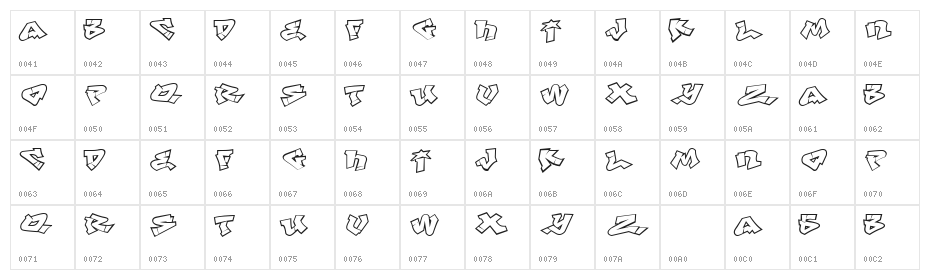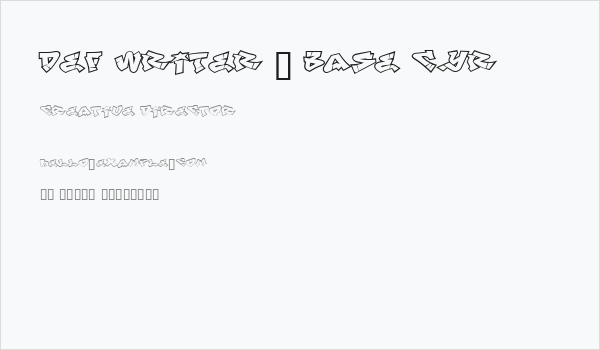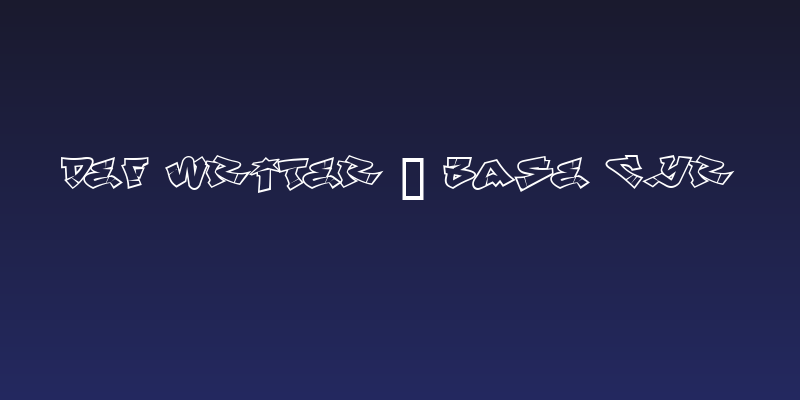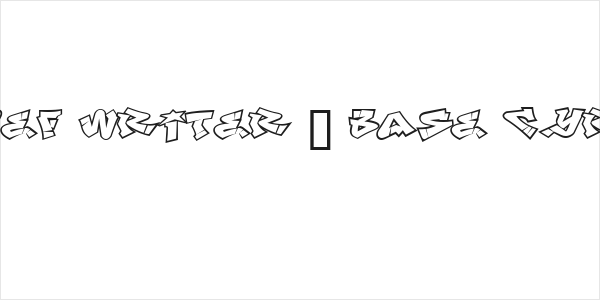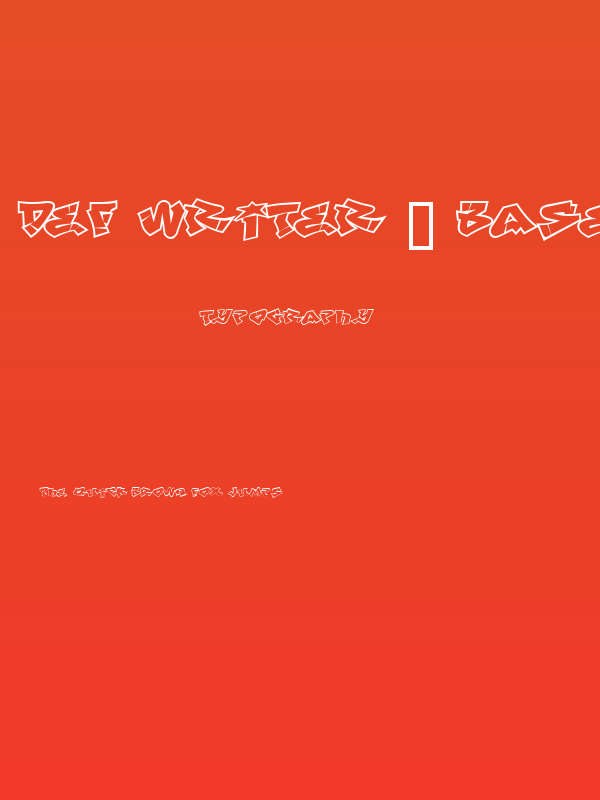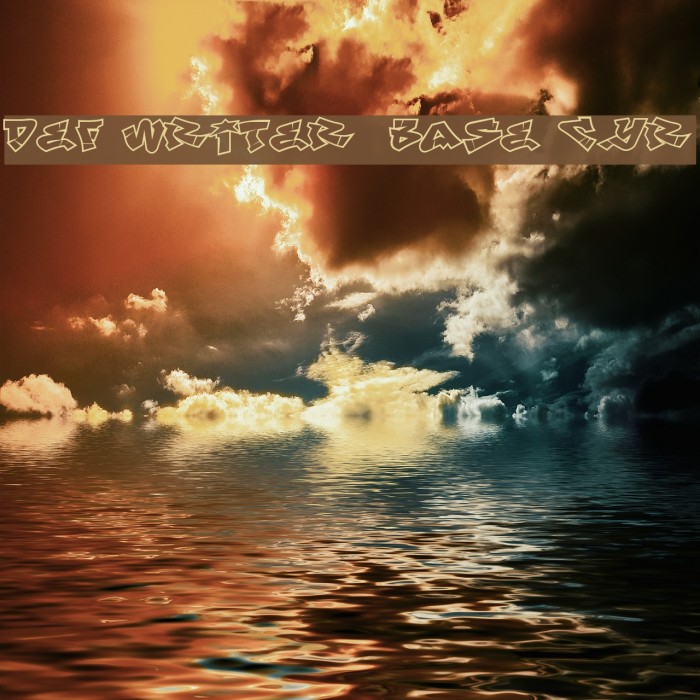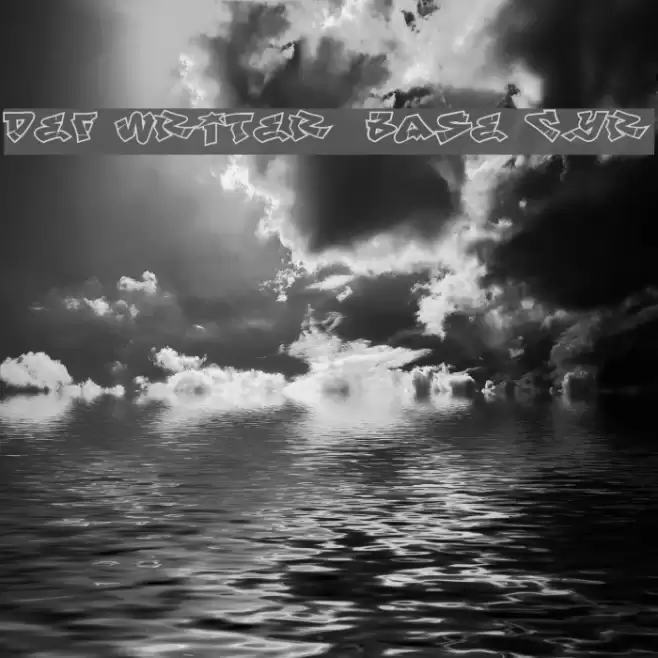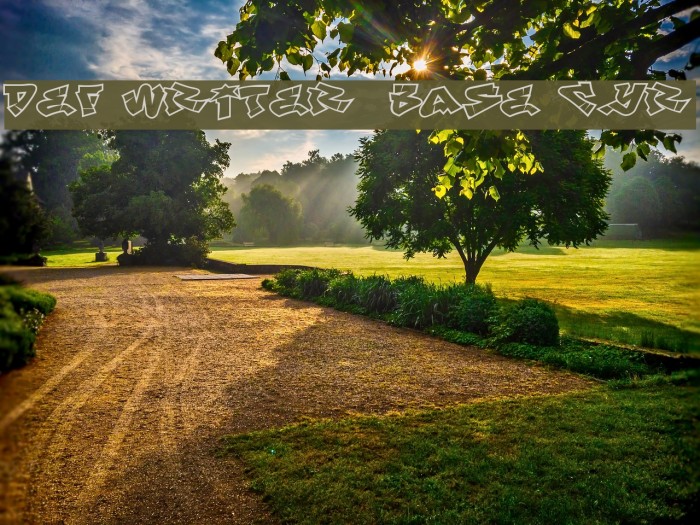
Def Writer | BASE Cyr Font
Def Writer | BASE Cyr Description
This font features a bold, graffiti-inspired style with angular, dynamic shapes that give it a sense of movement and energy. The uppercase and lowercase letters share a consistent design, characterized by sharp edges and a slightly uneven baseline, adding to its urban, street-art aesthetic. The numbers and special characters maintain this edgy look, making the font suitable for eye-catching designs. The overall appearance is both playful and rebellious, ideal for projects that require a bold statement.
| Overall Style | Urban, Graffiti, Edgy |
| Proposed Projects | Perfect for street art designs, urban-themed posters, music album covers, and edgy branding projects. |